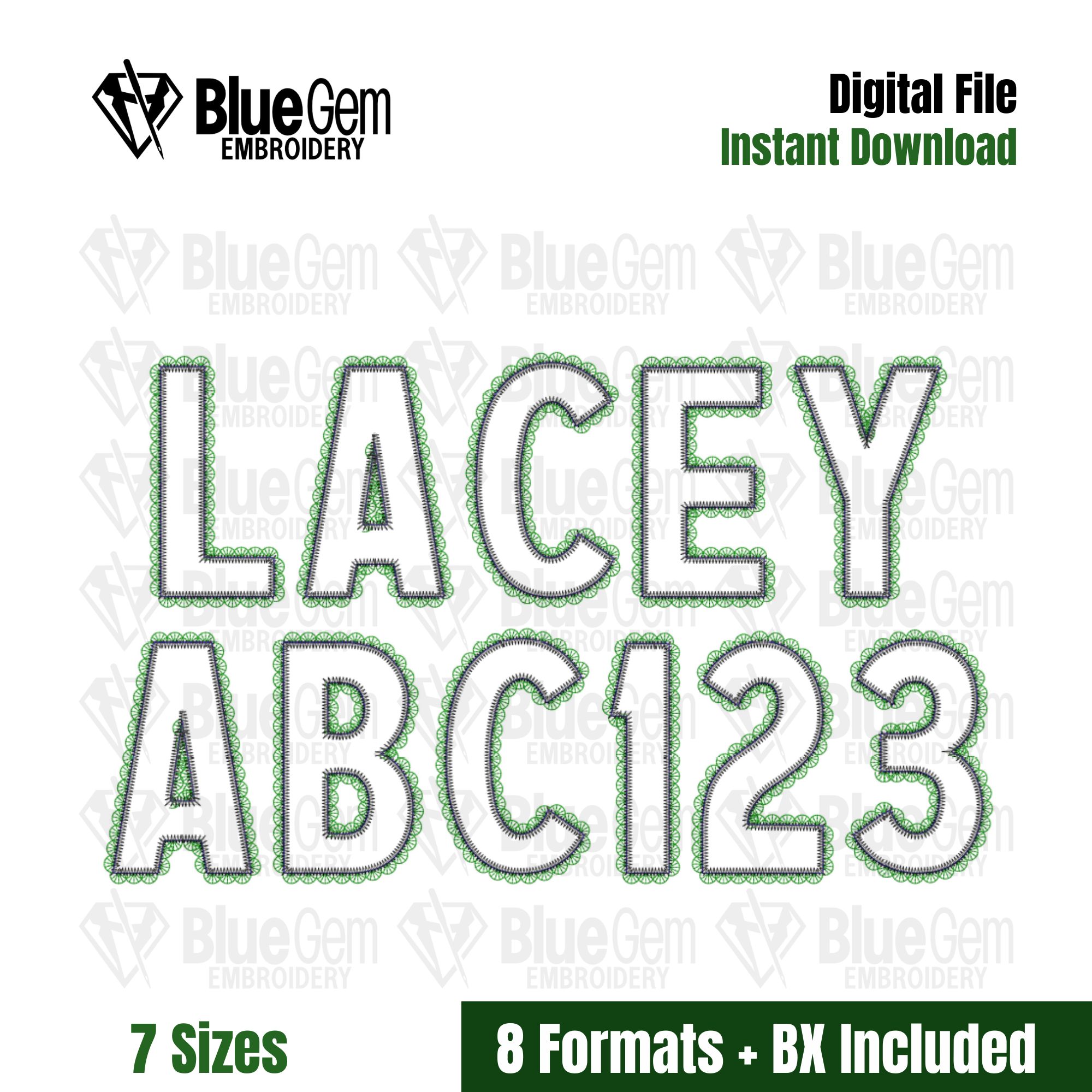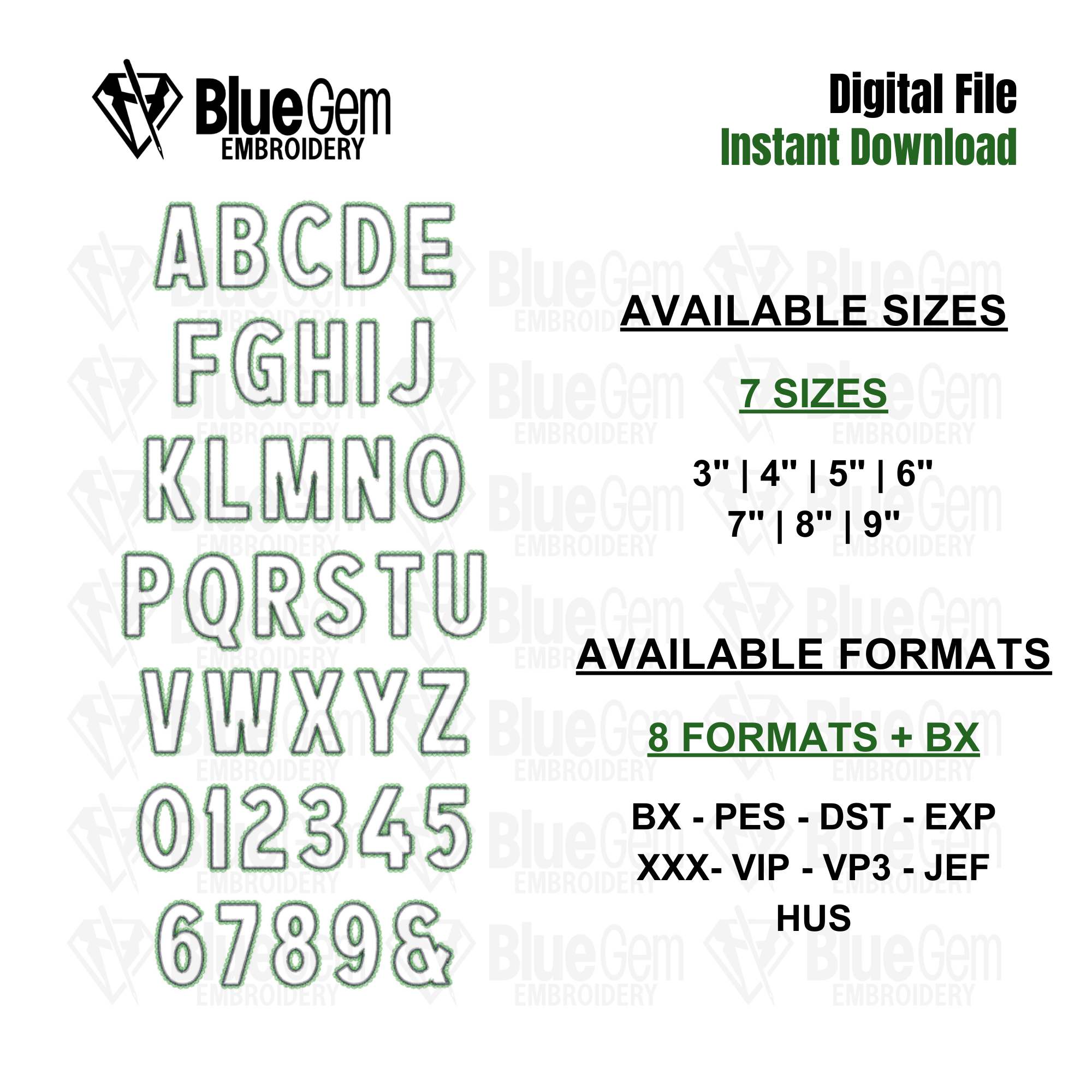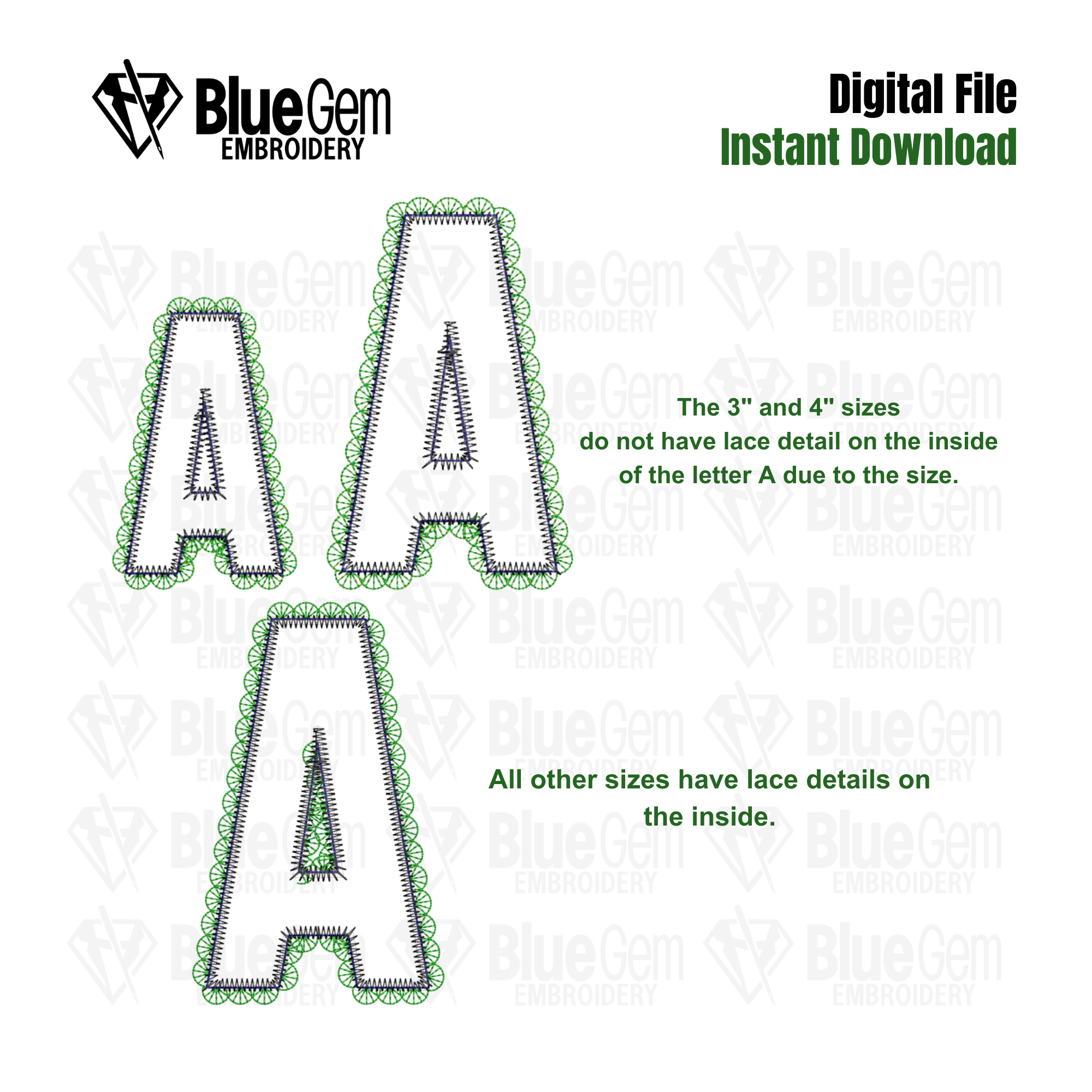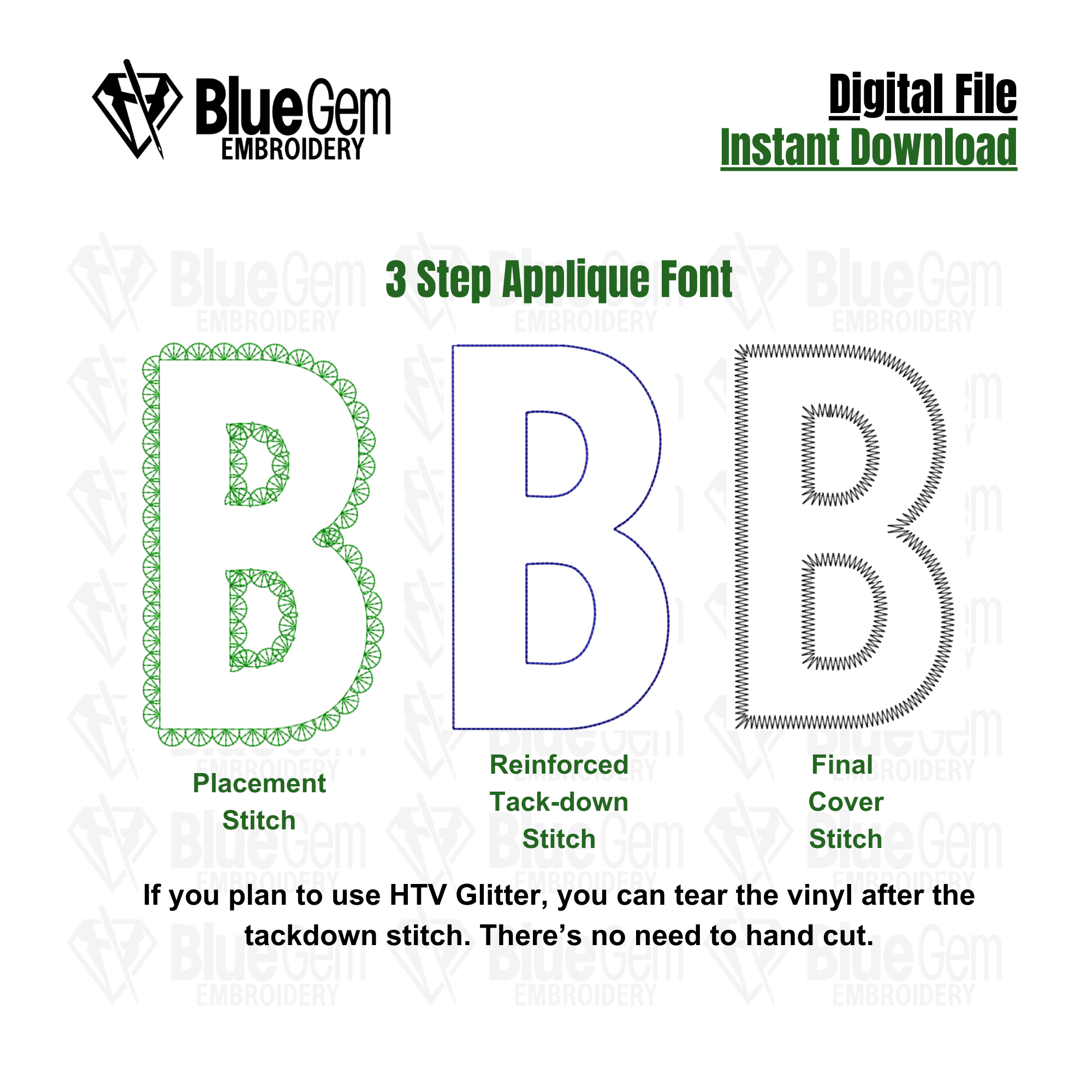
Lacey Applique Embroidery Font: 7 Sizes, A-Z, 0-9 (BX Font Included)
All the letters are applique letters. There is a zigzag cover stitch.
Lace Zigzag Applique Embroidery Font: Faux Lace BX Font, 7 Sizes, A-Z, 0-9 (BX Font Included)